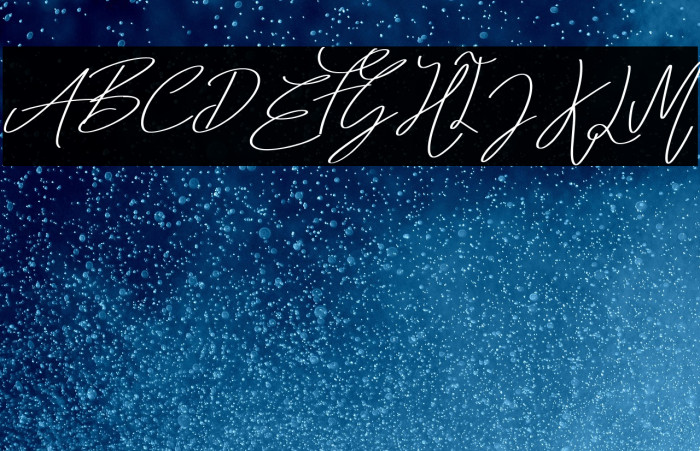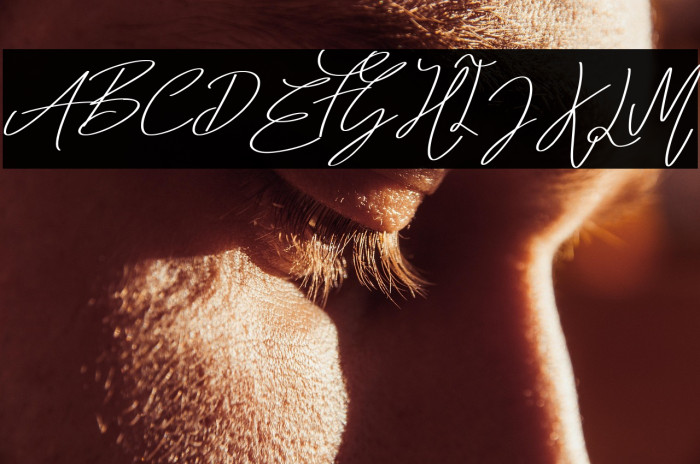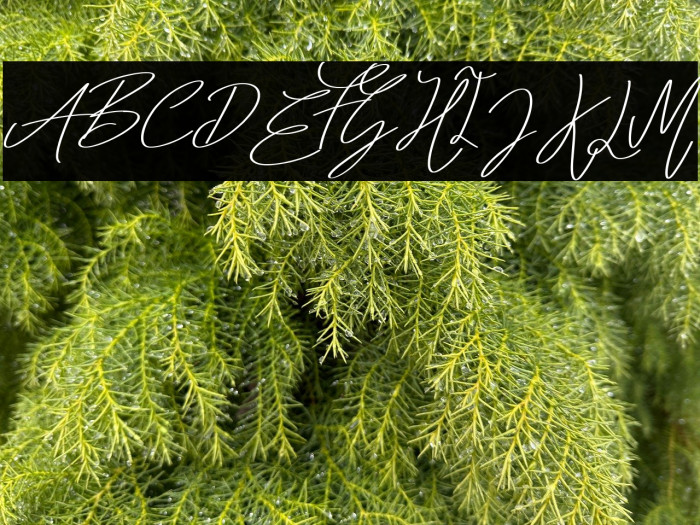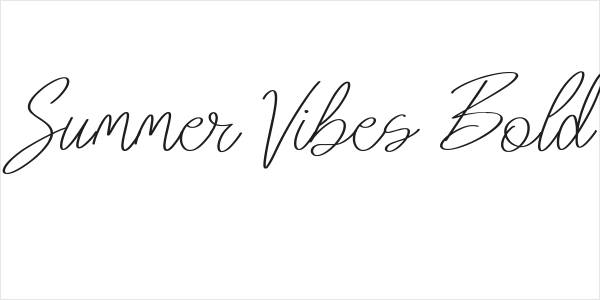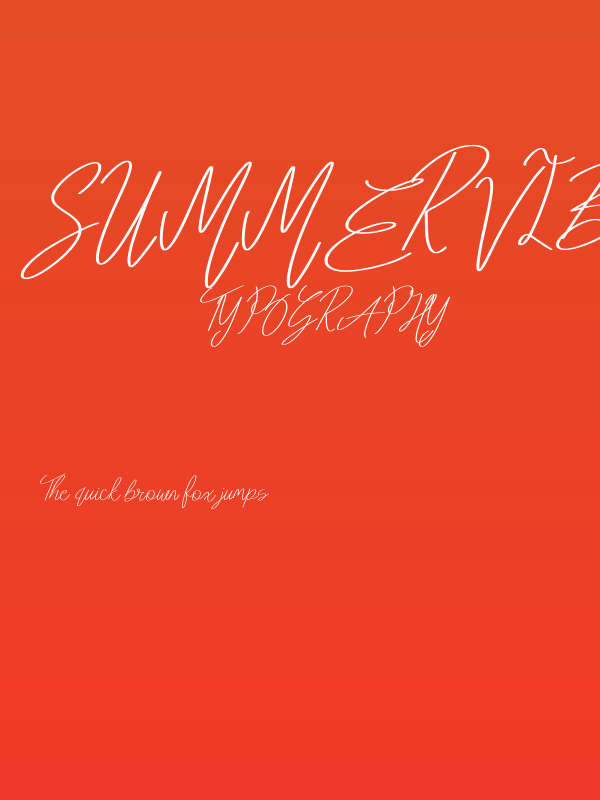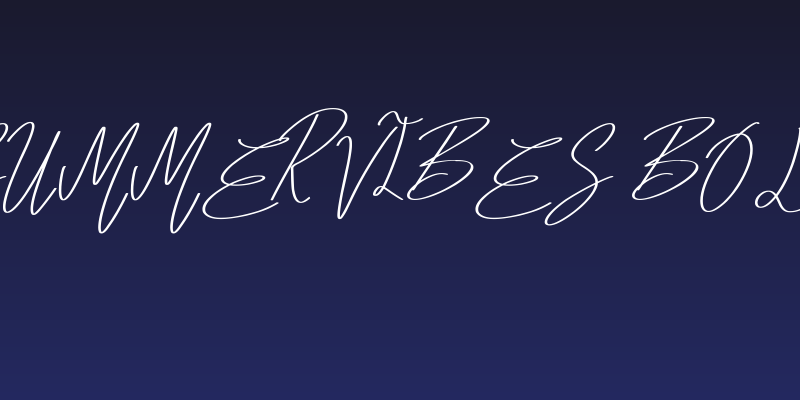
Summer Vibes Bold Font
Summer Vibes Bold Description
This font exudes a lively and energetic vibe, characterized by its flowing, cursive script style. The letters are elegantly connected, creating a seamless and fluid appearance. The strokes are smooth and slightly varied in thickness, adding a touch of dynamism and movement. The uppercase letters are bold and prominent, while the lowercase letters maintain a consistent flow, enhancing readability. This font's playful and casual nature makes it ideal for projects that aim to convey a sense of fun and creativity.